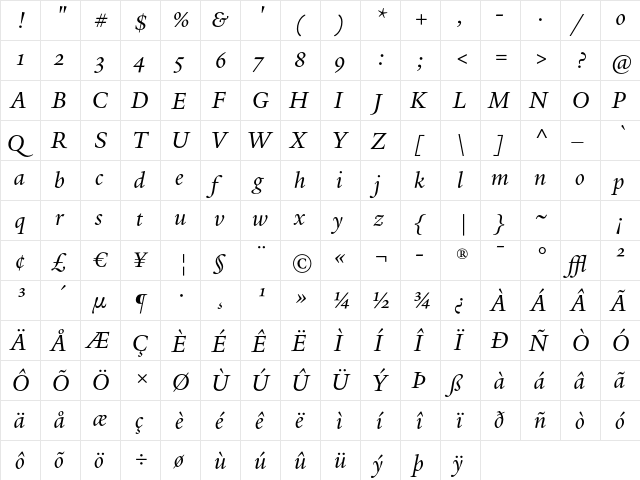
Male Design Italic
Design Context for Male Typeface
Male takes a measured approach to typography — its balanced proportions and neutral character make it a reliable workhorse for both digital and print work. Its italic angle brings a sense of urgency and motion to the letterforms.
Pro Tip: Try Male for annotation and caption copy alongside an upright companion — the contrast in angle creates a dynamic but ordered typographic system.